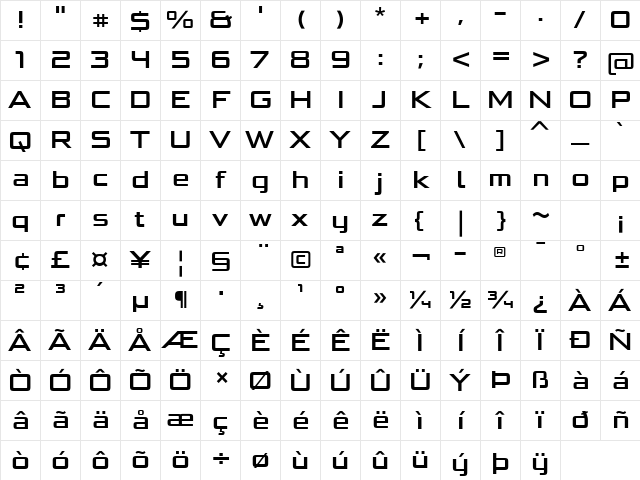
BunkenTechSansProWide-SeBd & Free Font
BunkenTechSansProWide-SeBd &
Foundry: Buntype
Designer: Ralf Sander and Petra Niedernolte
Design Context for BunkenTechSansProWide-SeBd
BunkenTechSansProWide-SeBd has a distinctly futuristic character, with geometric precision and clean angles that feel at home in technology, gaming, and sci-fi contexts.
Pro Tip: Try BunkenTechSansProWide-SeBd with generous letter-spacing in UI labels and navigation - the geometric forms benefit from room to breathe.